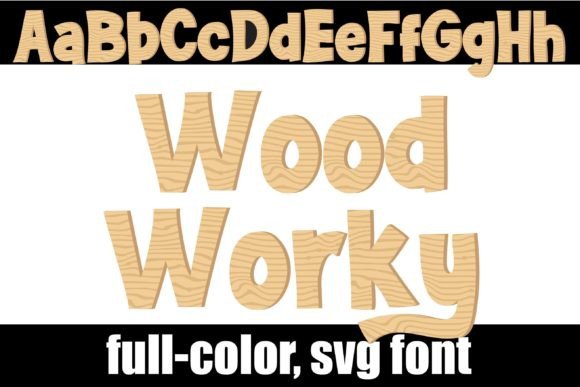
Dive into the world of creativity with Wood Worky Font, a captivating full-color sans serif lettering family inspired by the warmth and texture of wood. Designed by Illustration Ink, this exceptional font collection will ignite your imagination and bring a touch of nature's charm to your digital creations.
Crafted with meticulous attention to detail, each letter in the Wood Worky Font family is a masterpiece, showcasing the unique grain patterns and natural beauty of wood. From bold headlines to delicate body text, this font family is a versatile choice for a wide range of projects.
Experience the allure of colors that come alive with Wood Worky Font. Each character carries the vibrant hues and rich textures of wood, adding a splash of life and personality to your designs. Unleash your inner artist and explore a world where words become works of art.
With Wood Worky Font, you'll discover new possibilities for your creative projects. Design eye-catching logos that leave a lasting impression, create stunning social media graphics that pop, or add a touch of rustic elegance to your website. The possibilities are endless.
Whether you're a seasoned designer or just starting your creative journey, Wood Worky Font is the perfect choice to add a touch of warmth and natural beauty to your projects. Embrace the beauty of nature and let your creativity soar with this remarkable font family.
So, why settle for ordinary fonts when you can elevate your designs with Wood Worky Font? Embrace the power of nature and creativity today!